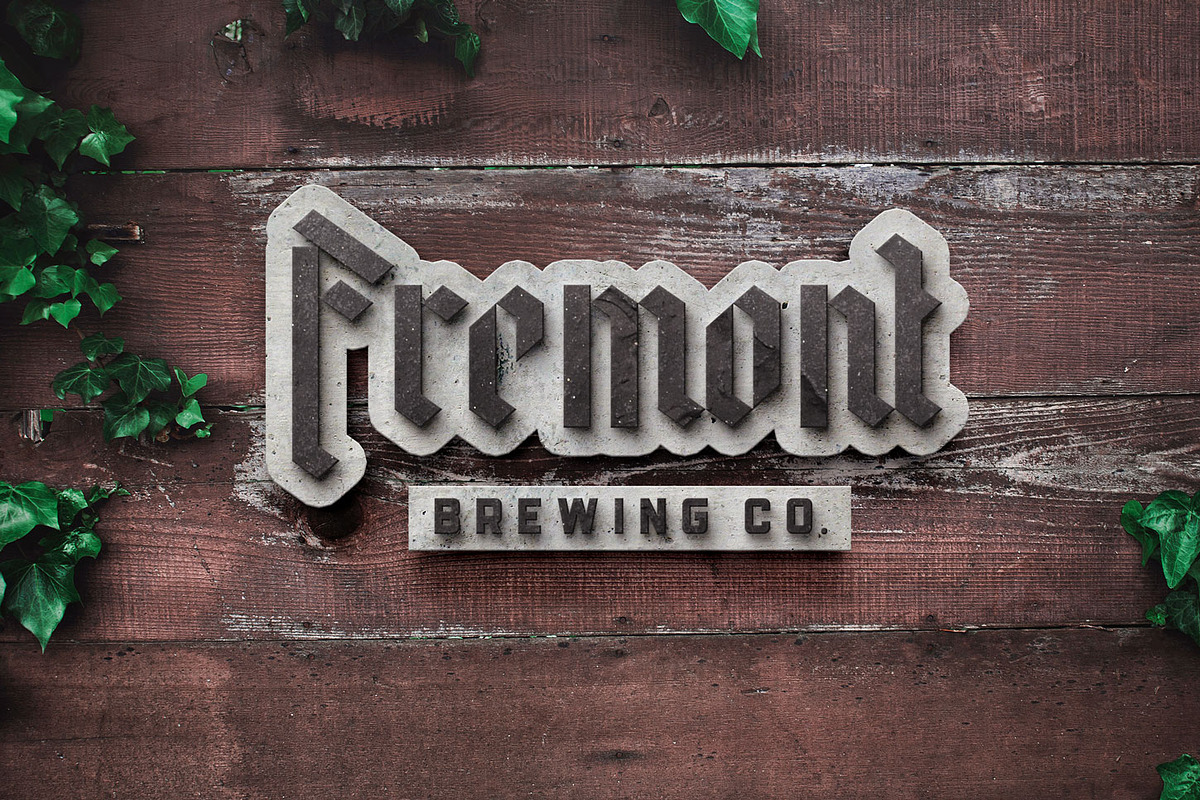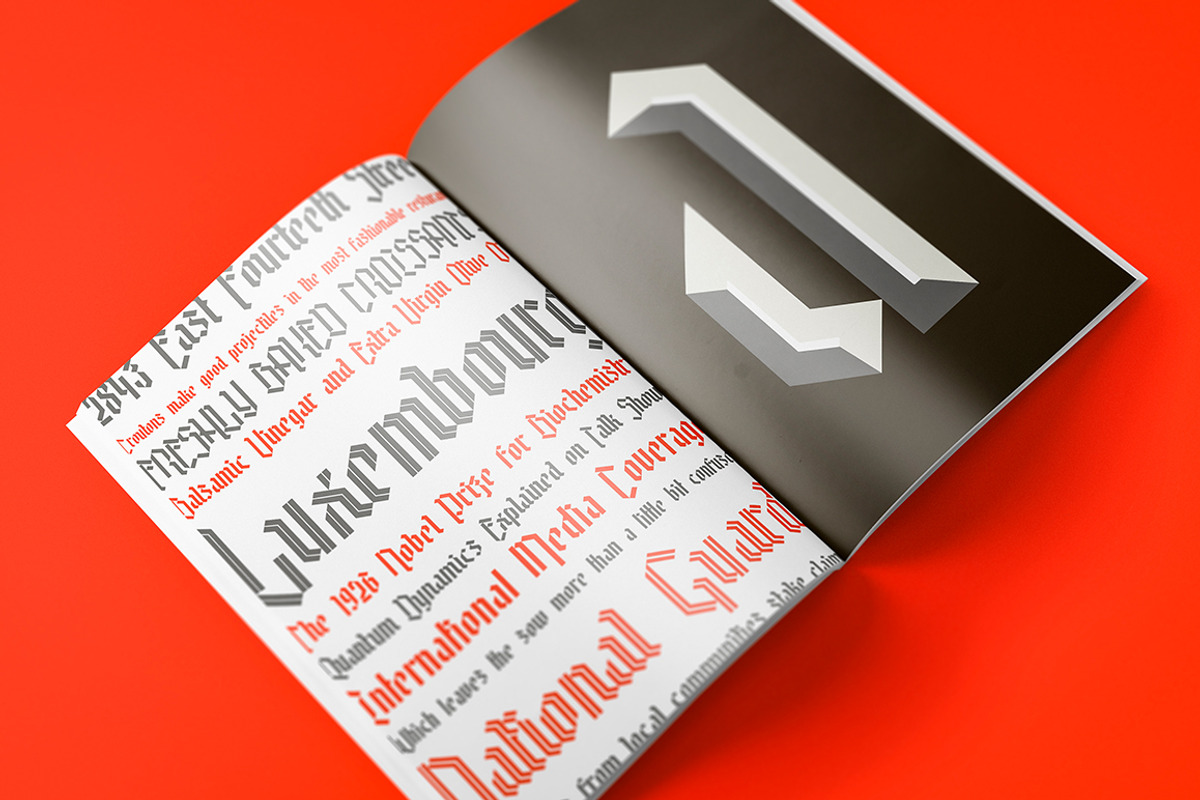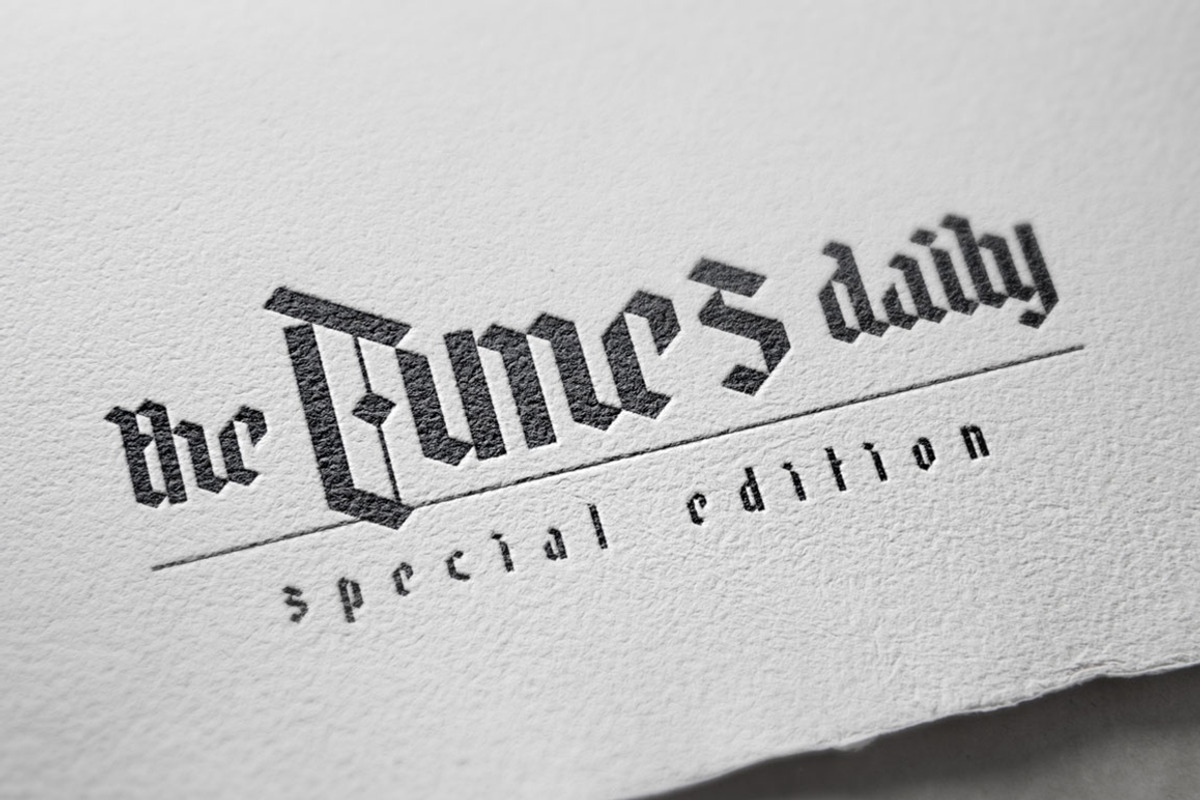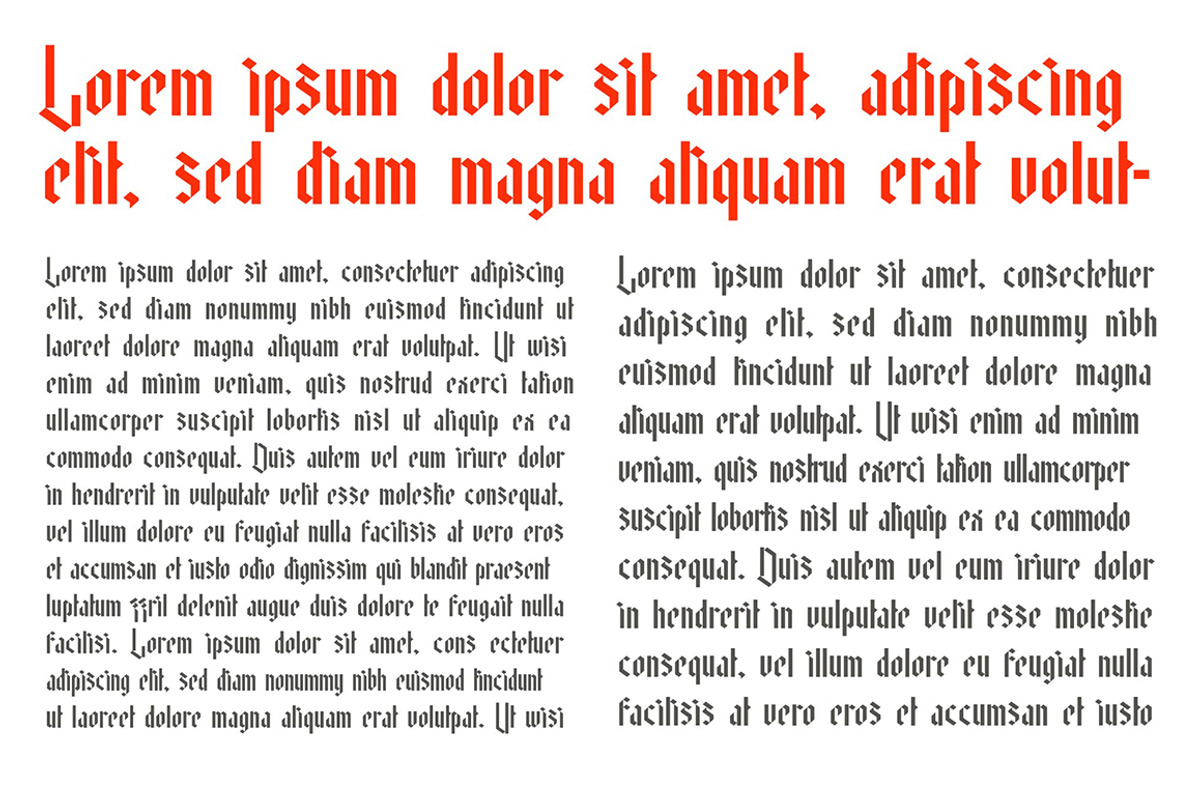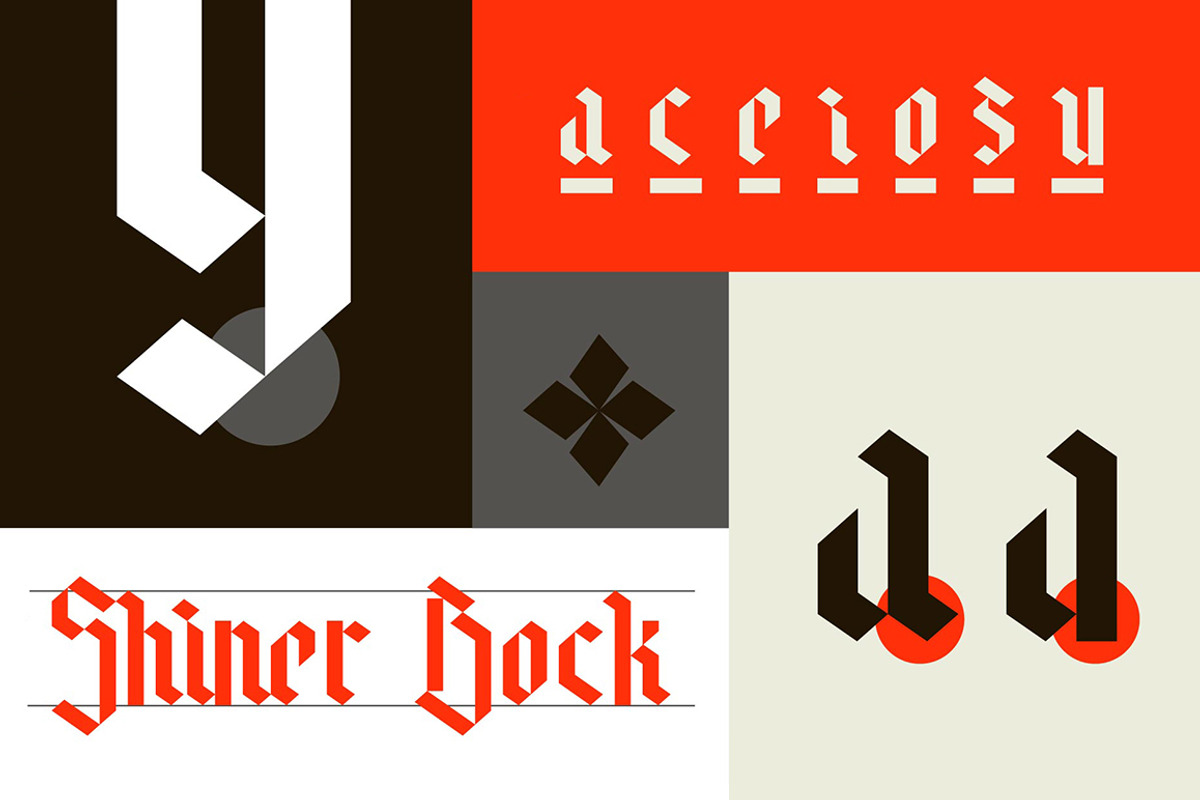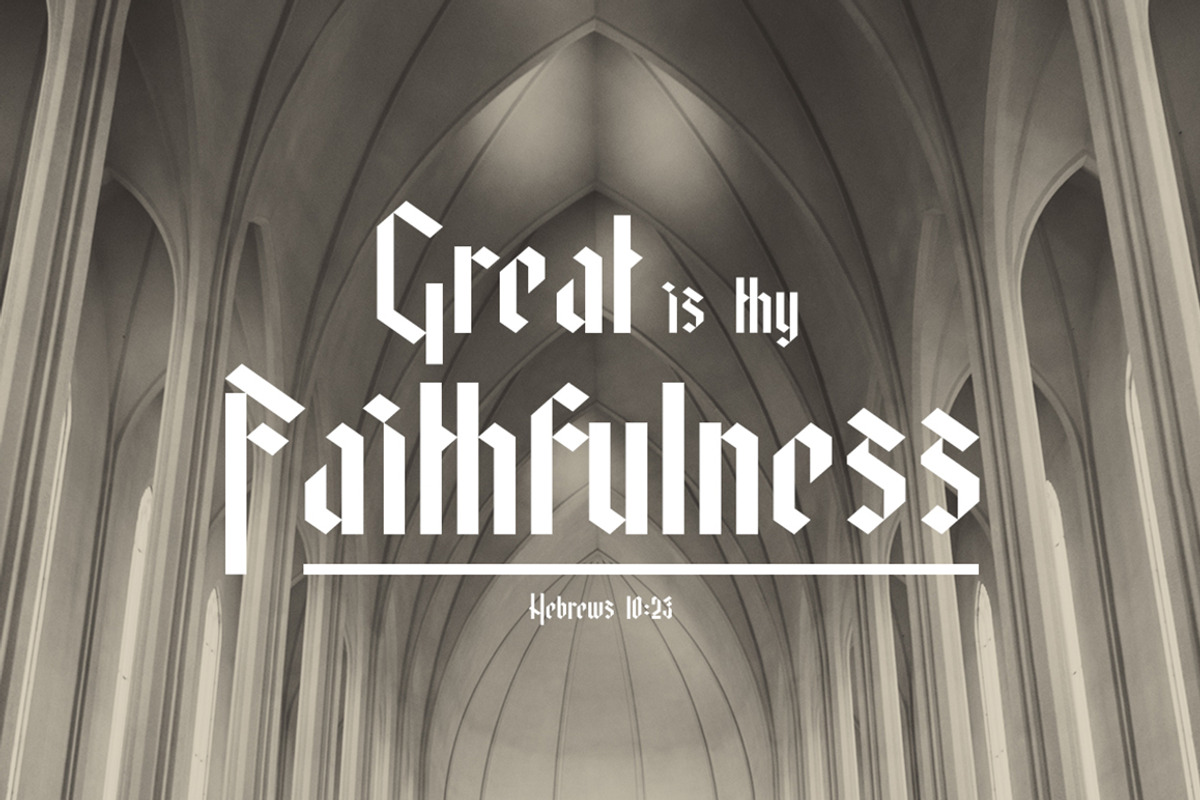
Easy Company Typeface Complete Set
Easy Company Typeface Complete Set by Thomas Ramey Designs is a font selected for branding, posters, packaging, typography.
Why Easy Company Typeface Complete Set is worth a look
Easy Company Typeface Complete Set by Thomas Ramey Designs fits naturally into Branding, posters, packaging, typography.